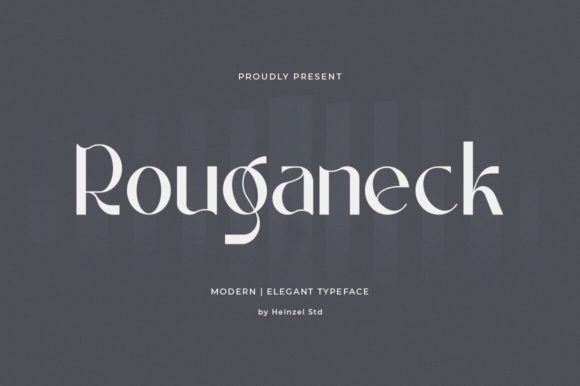
Dive into the world of sophistication and elegance with Rouganeck, the captivating sans serif font family that oozes contemporary allure. Crafted with meticulous care by the renowned Heinzel Std, Rouganeck transcends ordinary fonts, inviting you to embark on a creative voyage like no other.
With its clean lines, graceful curves, and striking presence, Rouganeck is a symphony of visual harmony. Each letterform is meticulously crafted to exude an air of refinement, ensuring that your designs demand attention and leave a lasting impression.
Unleash your creativity and let Rouganeck work its magic in your projects. Whether you're a seasoned designer or just starting your artistic journey, this versatile font family is your perfect companion. Discover endless possibilities as you create stunning wedding invitations that capture the essence of romance, design logos that exude professionalism, or craft captivating social media posts that ignite engagement.
Rouganeck is not just a font; it's an experience that elevates your designs to new heights. Its versatility knows no bounds, effortlessly adapting to a myriad of creative endeavors. From eye-catching headlines that command attention to beautiful stationary art that speaks volumes, Rouganeck is your ultimate choice for creating designs that resonate with your audience.
Don't settle for ordinary; embrace the extraordinary with Rouganeck. Let your creativity soar as you explore the boundless potential of this exceptional font family. Experience the joy of crafting designs that tell a story, convey a message, and leave an indelible mark on the world.